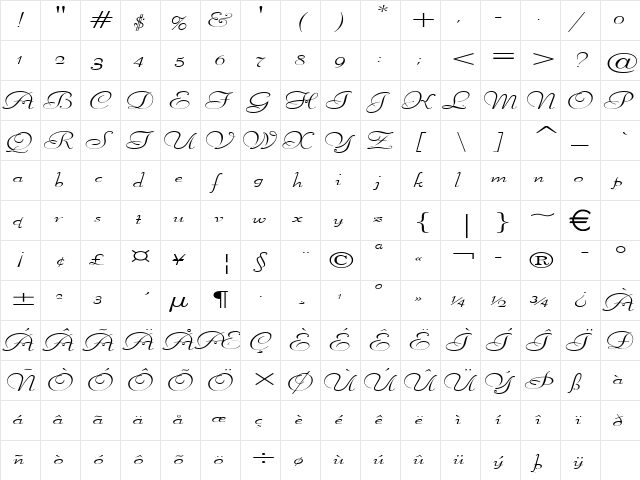
LiberateExtended Normal
Design Context for LiberateExtended Typeface
LiberateExtended is a composed and adaptable typeface that performs quietly and consistently across a wide range of design contexts.